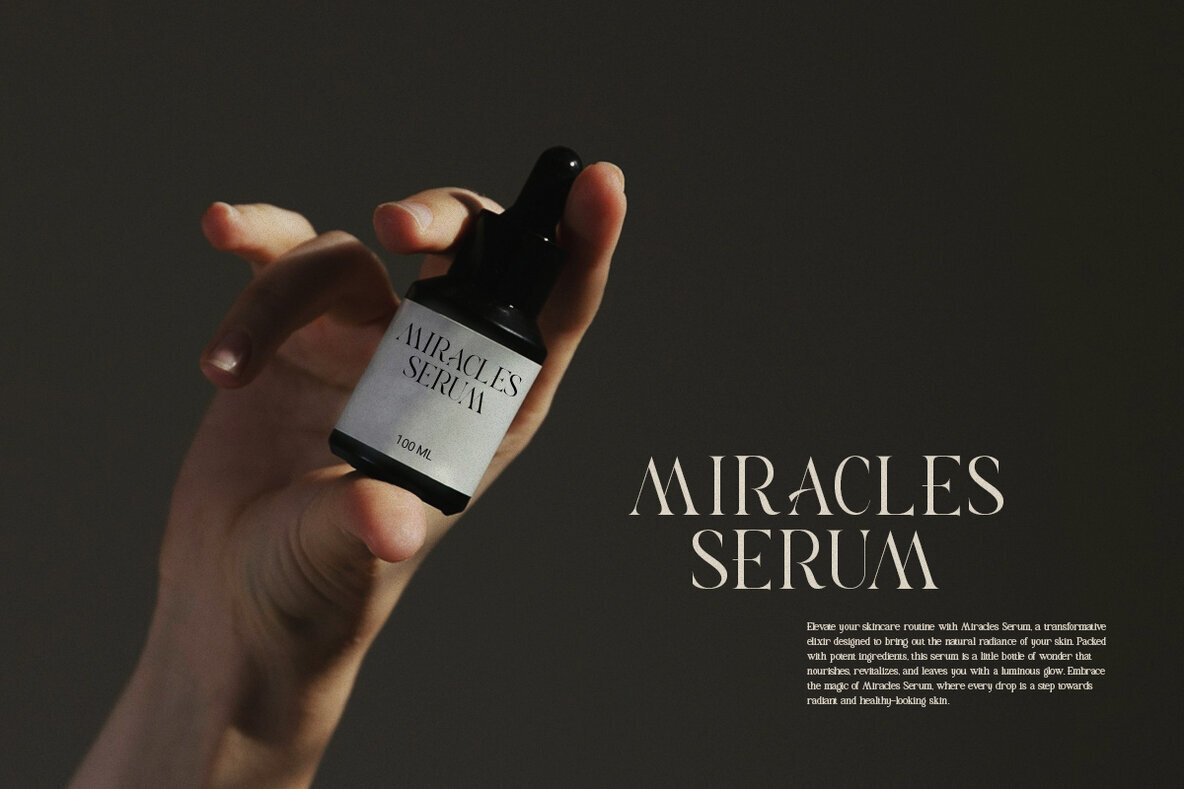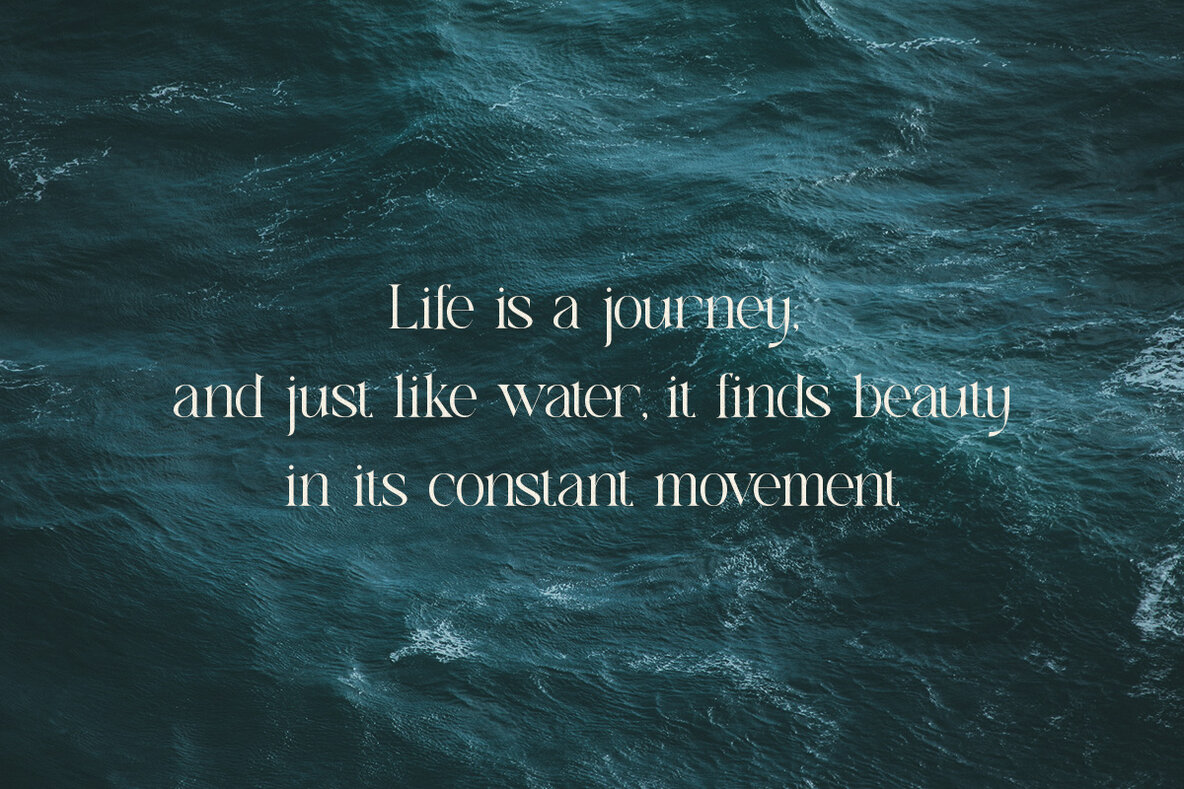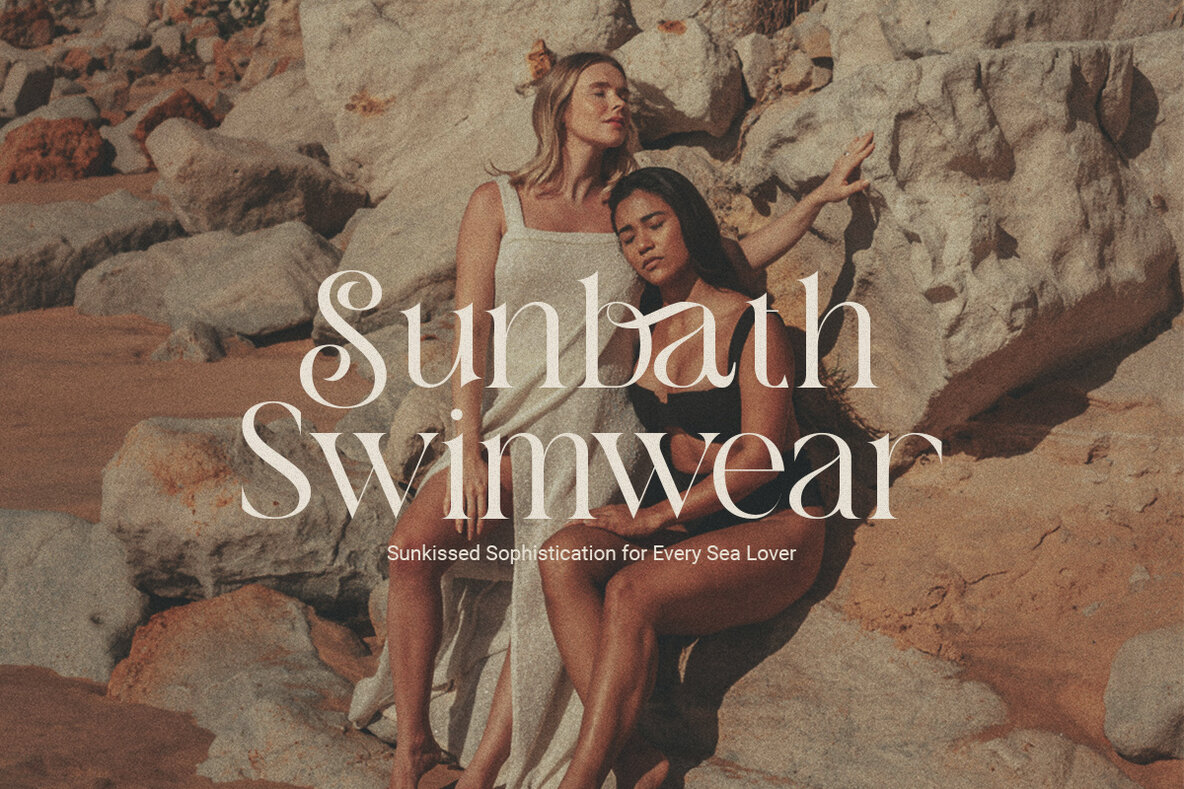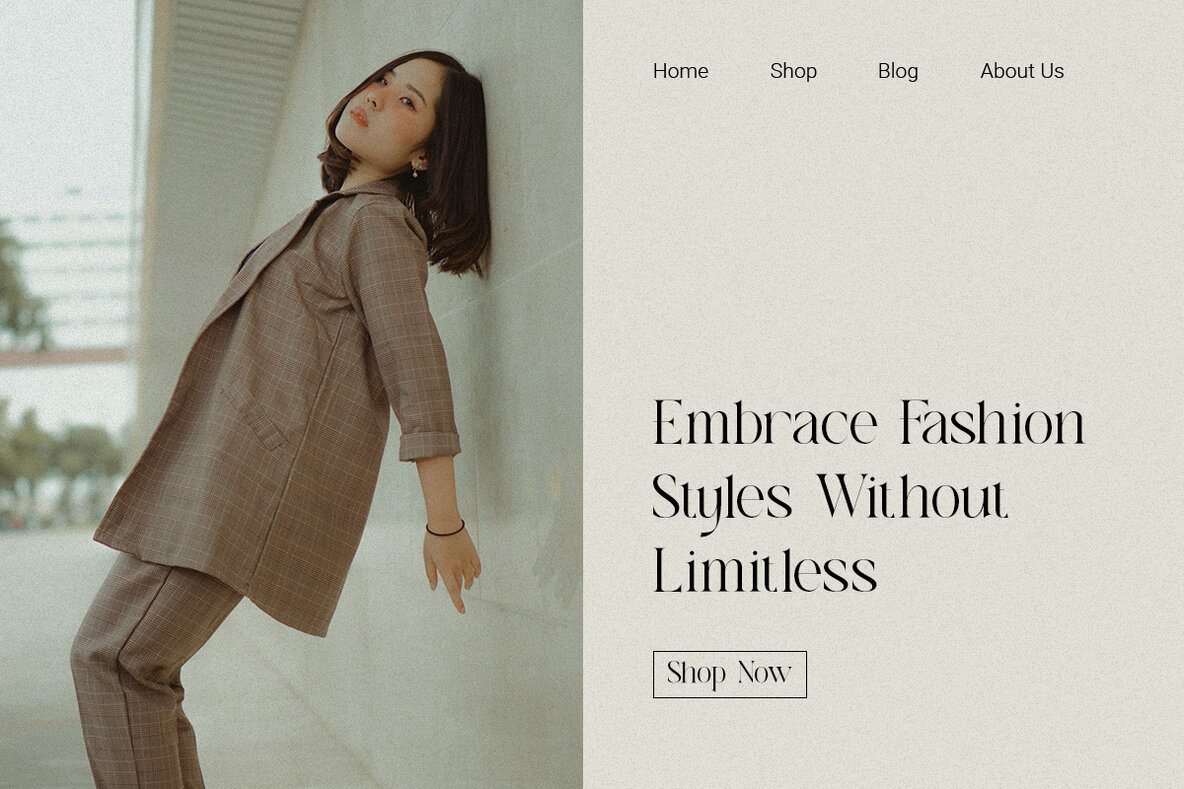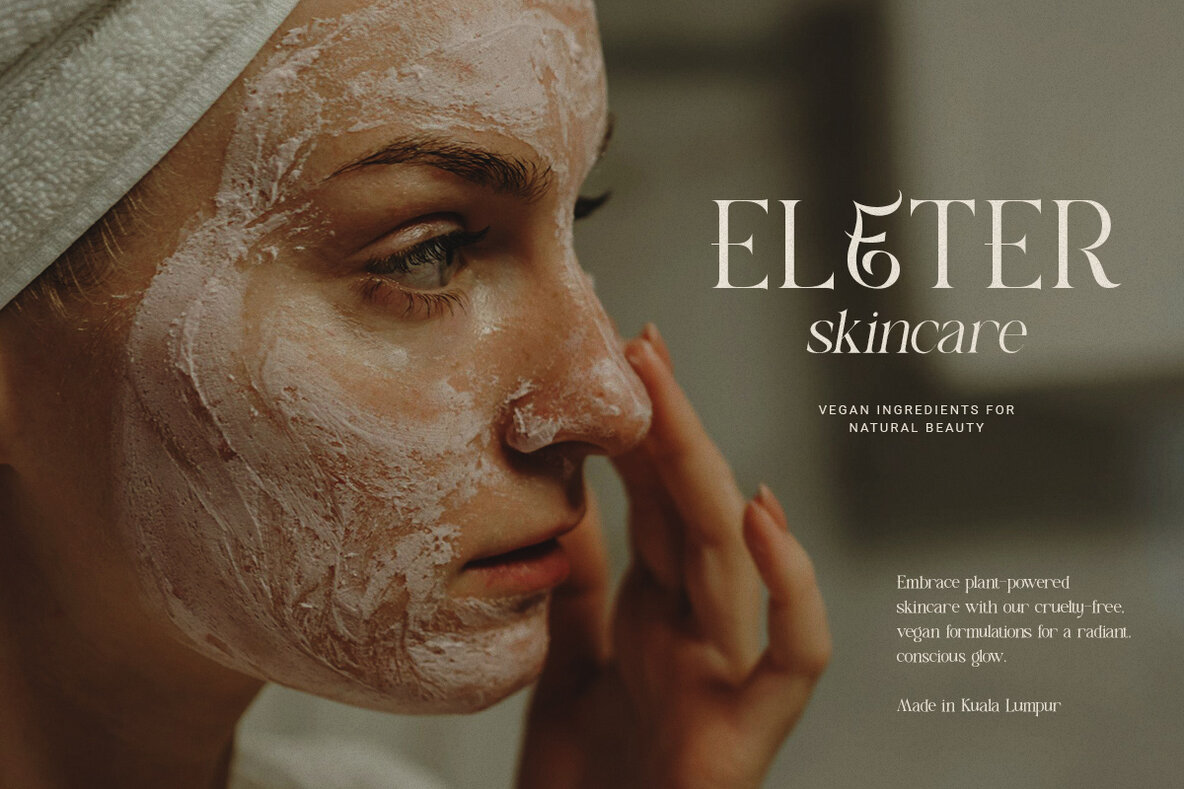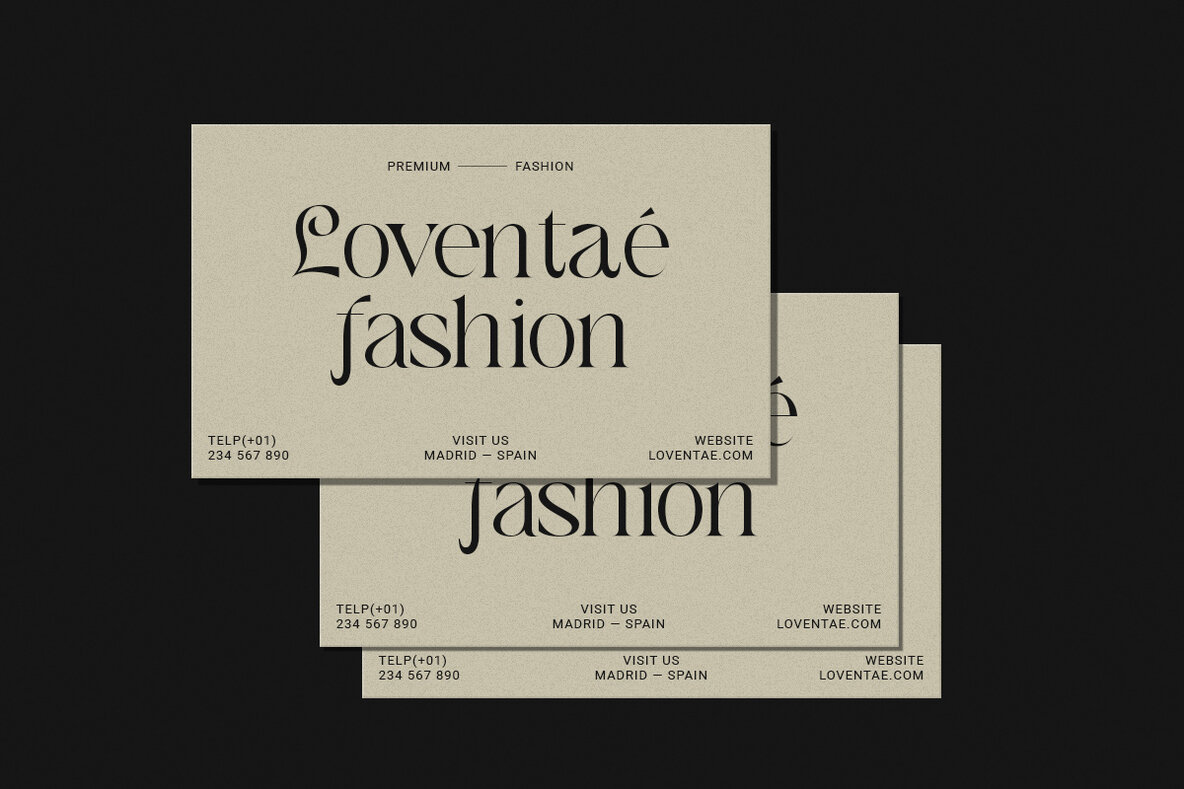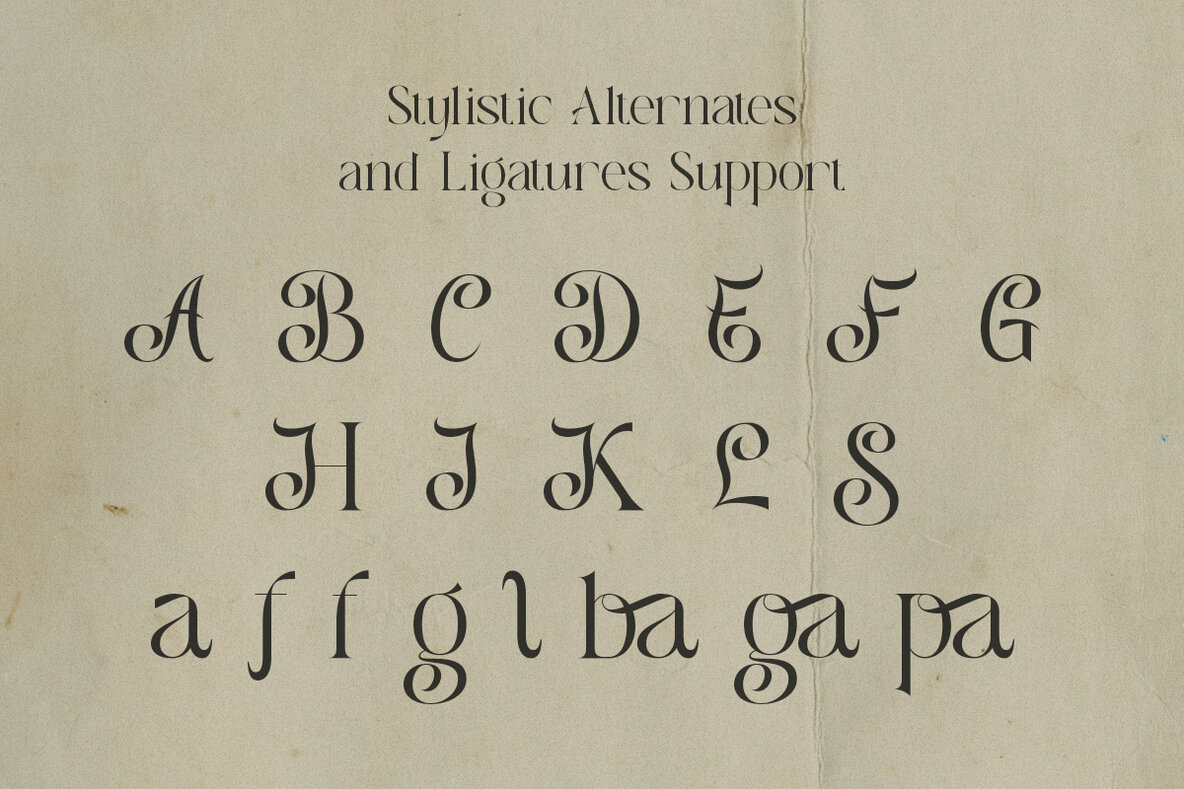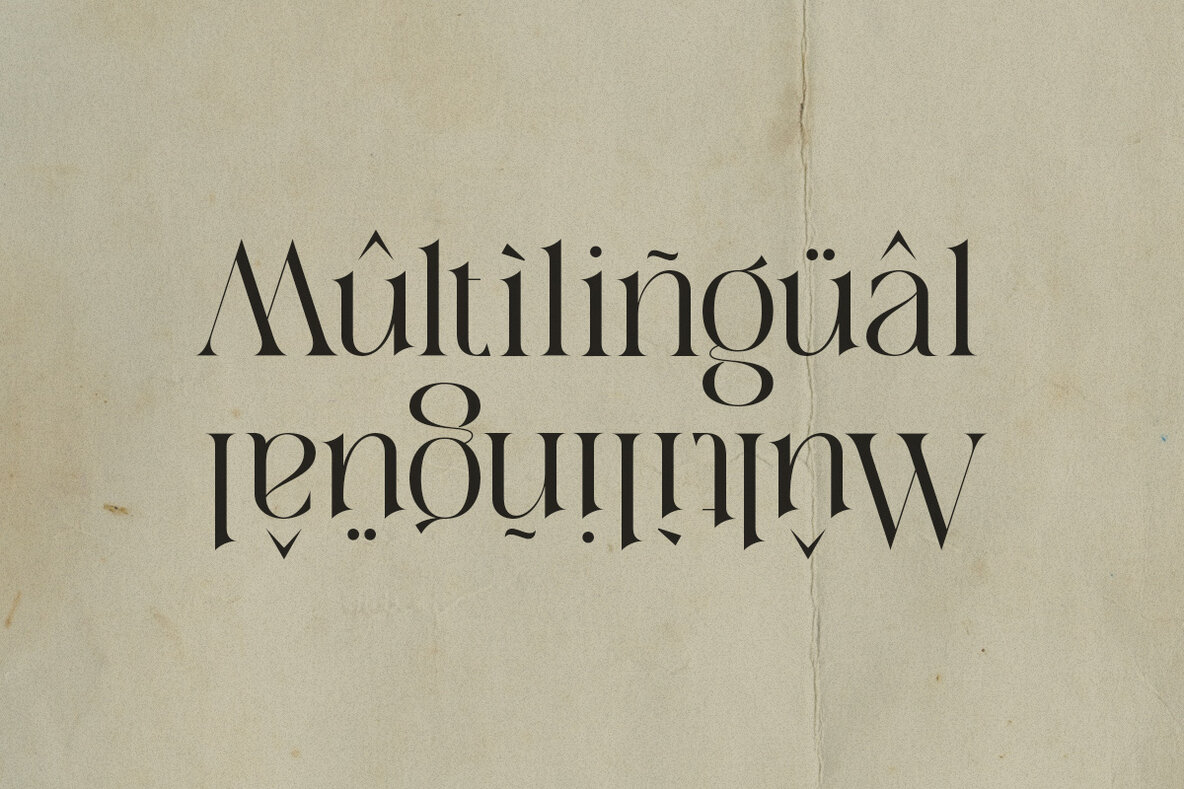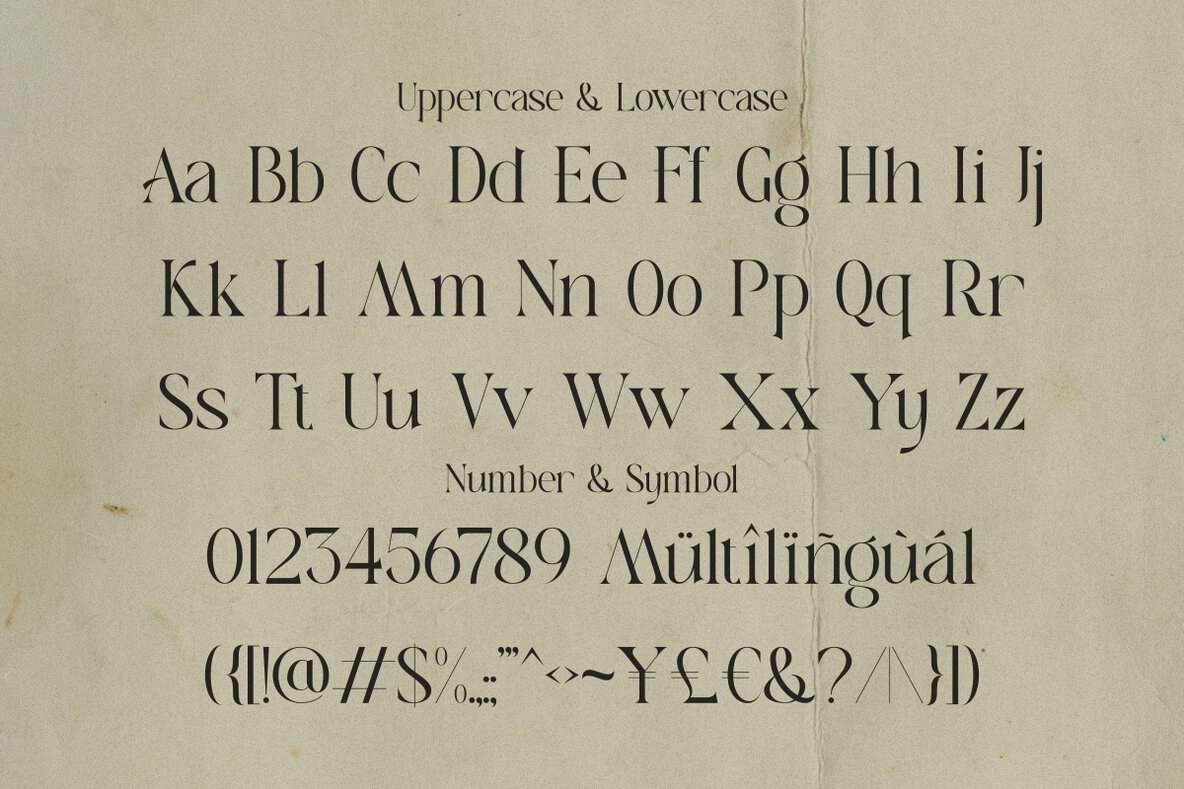
Allegiance Font
expand_font Allegiance Font Discover Allegiance: A modern serif font blending retro charm with contemporary style. Elevate your designs with elegance. Elegant,Retro,Vintage,Fashion,Feminine,Western,Instagram,Aesthetic,Retro Advertising,Serif,Bold,Book Covers,Contrast,Editorial,Headlines,High Contrast,Luxury,Premium,Wedding Invitations Explore Exceptional Fonts for Digital and Traditional Media Fontpath offers a large variety of fonts for every designer, all at affordable prices and in multiple formats. Browse our best in class fonts today for all your creative needs, you can find everything you need right here at our site! Fonts,sans,sans serif,retro,script,decorative,title,FontPath 20140312040223 Fontpath offers 200,000+ of the most professional fonts found online, start downloading today! Real-Time Font Discovery at Fontpath